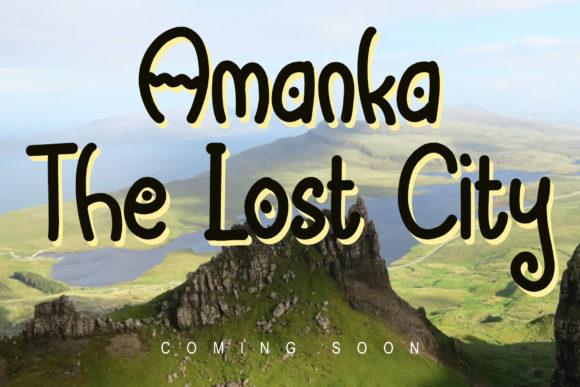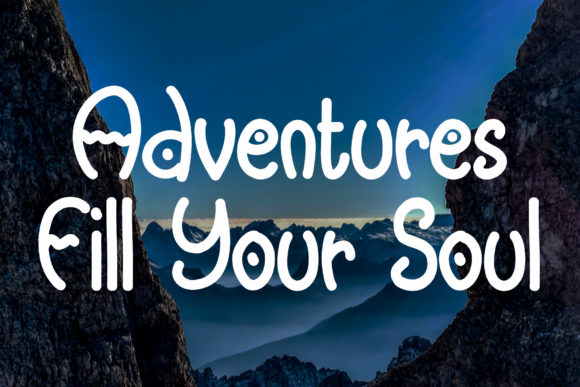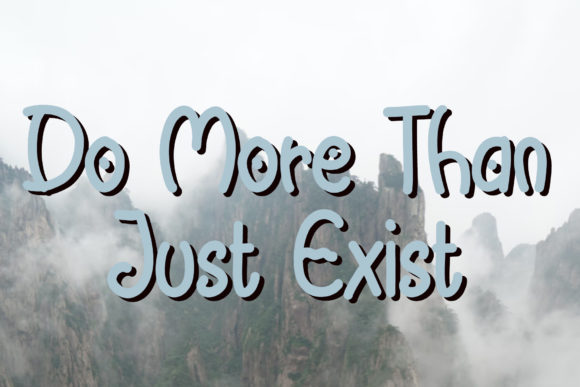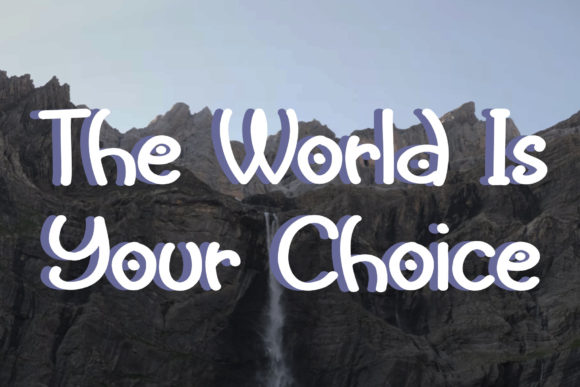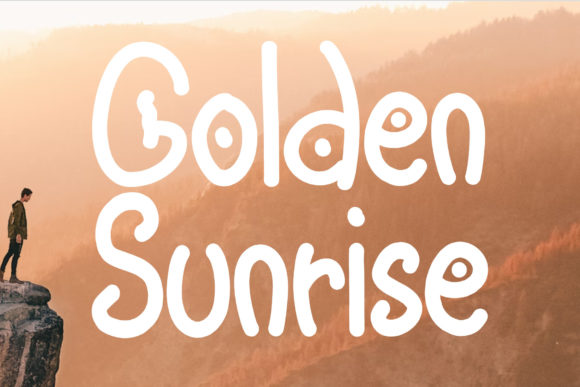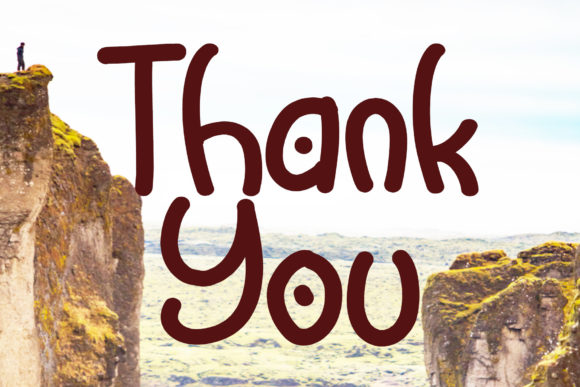
Discover the Treasure of Typography: El Dorado Font
Are you on the hunt for a font that embodies the essence of luxury, adventure, and elegance? Look no further than the El Dorado Font, a stunning display font inspired by the legendary lost city of gold. This beautiful font is sure to captivate designers and crafters alike with its incredibly versatile style, perfect for creating spectacular designs that shine.
The Legend of El Dorado
El Dorado, the fabled city of gold, has long been a source of fascination for many. The mythical city, believed to be hidden deep within the rainforests and mountains of South America, has led countless conquistadors on a fruitless trek in search of its treasures. The allure of El Dorado lies not only in its supposed wealth but also in its mystique and the sense of adventure it evokes.
Introducing El Dorado Font
El Dorado Font is a masterpiece of typography, drawing inspiration from the enchanting story of the lost city of gold. This gorgeous display font is designed to add a touch of sophistication and whimsy to any design project. Its versatile style makes it perfect for a wide range of applications, from wedding invitations and thank you cards to quotes, greeting cards, logos, business cards, and more.
Key Features of El Dorado Font
- Versatile Style: El Dorado Font boasts an incredibly versatile style that can be used in various design projects, from formal to informal.
- Elegant and Fun: This font combines elegance and playfulness, making it perfect for designs that require a touch of sophistication and whimsy.
- Easy to Read: Despite its ornate appearance, El Dorado Font is easy to read, ensuring that your message is conveyed clearly and effectively.
- High-Quality Design: El Dorado Font is designed with high-quality craftsmanship, ensuring that it stands out in any design project.
Design Ideas with El Dorado Font
El Dorado Font is a versatile design tool that can be used in a multitude of projects. Here are some design ideas to get you started:
- Wedding Invitations: Add a touch of luxury and romance to your wedding invitations with El Dorado Font.
- Thank You Cards: Express your gratitude in style with beautifully designed thank you cards featuring El Dorado Font.
- Quotes and Posters: Create stunning quotes and posters that showcase the beauty of El Dorado Font.
- Greeting Cards: Design eye-catching greeting cards for special occasions, such as birthdays, anniversaries, and holidays.
- Logos and Branding: Use El Dorado Font to create unique and memorable logos and branding materials for your business.
- Business Cards: Stand out from the crowd with professionally designed business cards featuring El Dorado Font.
Why Choose El Dorado Font?
- Unique Style: El Dorado Font offers a distinctive style that will set your designs apart from the rest.
- Ease of Use: This font is easy to use and can be incorporated into various design projects with minimal effort.
- High-Quality Design: El Dorado Font is designed with quality in mind, ensuring that your designs look professional and polished.
El Dorado Font is a treasure trove of typographic delights, offering a unique and versatile style that’s perfect for designers and crafters. With its elegant and fun design, ease of use, and high-quality craftsmanship, this font is sure to become a favorite in your design arsenal. So why wait? Discover the treasure of El Dorado Font today and elevate your designs to new heights!